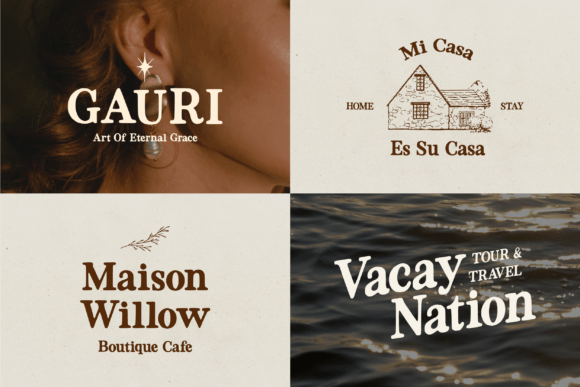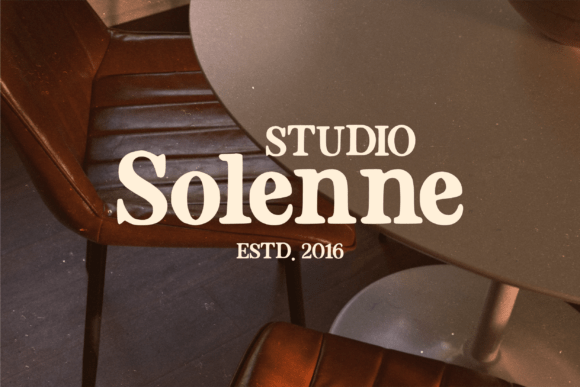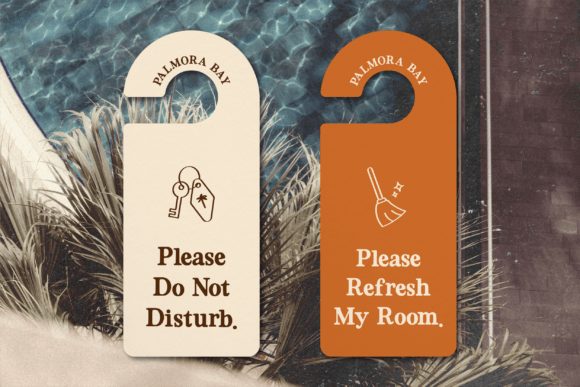
Introduction to Railla Sore Font
Have you ever been brainstorming a creative project, scrolling through design resources, and then suddenly, you stumble upon the perfect font? For designers, this moment is pure magic – it’s the spark that sets your ideas ablaze. And, for those who are still searching, I’m excited to introduce you to Railla Sore Font, a beautiful, handmade natural serif font that’s about to change the game.
With its unique blend of rustic charm and modern elegance, Railla Sore Font is the perfect addition to any design project. Whether you’re working on a high-quality branding campaign or a lifestyle editorial, this font brings a sense of warmth and authenticity that’s hard to find in digital design resources. Plus, its clean and subtly textured letterforms make it a versatile choice for designers who want to add a personal touch to their work.
Key Features of Railla Sore Font
- Unique and stylish font with a transparent background, ideal for various design applications.
- Perfect for use in logos, branding materials, and other design elements that require a unique and creative touch.
Honest Review: Railla Sore Font
As a designer, I’m always on the lookout for high-quality fonts to enhance my creative projects. Recently, I came across the Railla Sore Font, which promised to deliver a unique and stylish typography experience.
Upon closer inspection, I found that the Railla Sore Font indeed lives up to its promise. The font features a transparent background, making it easy to pair with any design element. The high-quality design ensures that the font looks crisp and clear on various screens and devices. ✨
Here are some of the things that work well for the Railla Sore Font:
- Unique and stylish typography
- High-quality design for optimal display
However, I did encounter some limitations. The font is only available in a limited number of weights, which may not be ideal for projects that require a range of font styles. ⚠️
Overall, I’m impressed with the Railla Sore Font’s performance, and I would recommend it to designers looking for a unique and high-quality typography solution. Just be aware of the limitations, and you’ll be all set for a successful creative project.
Tips for Getting the Most Out of Railla Sore Font
Use the Railla Sore Font on a transparent background to create a clean and modern design. Experiment with different font sizes and styles to add visual interest to your project.
The Railla Sore Font is perfect for use in logos, branding materials, and other creative projects where a unique and stylish font is desired.